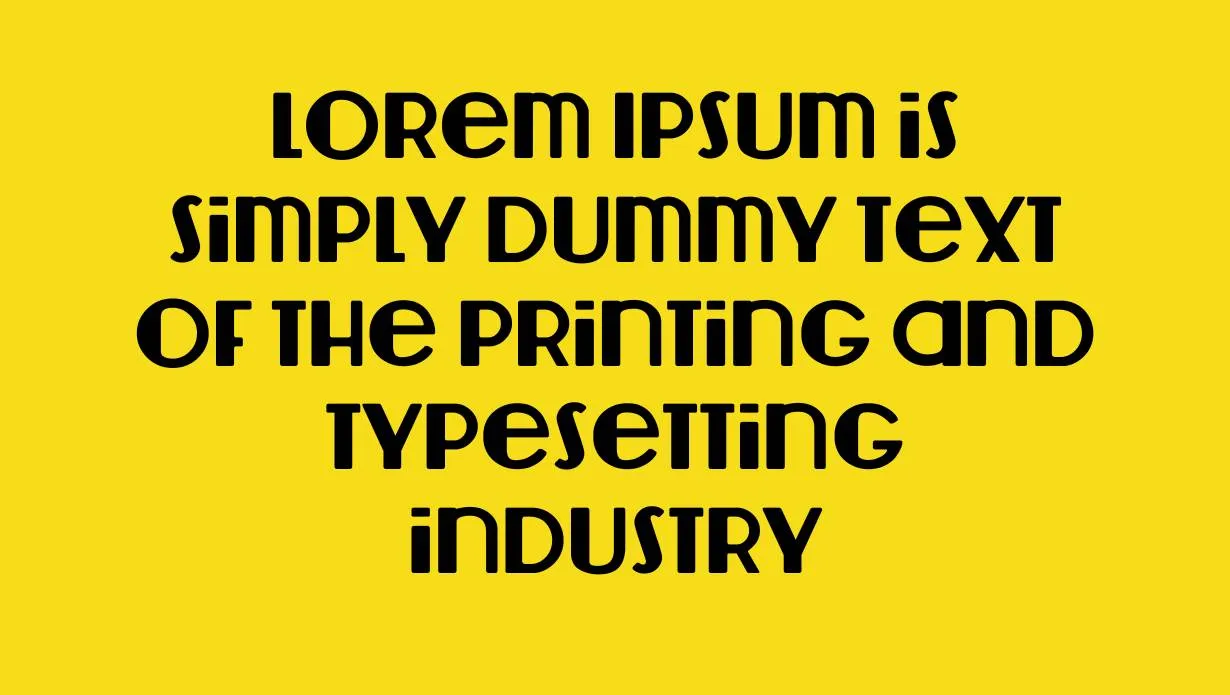
Lemondrop Font brings your text a fresh and vibrant style, making it perfect for youthful and energetic designs. It is a fancy font that can give your plans more creative vibes. It can be downloaded in OTF and TTF file versions
Lauren Thompson is an amazing font designer and he has also created this fantastic font. You can use Lemondrop Font conveniently with Canva and Adobe Photoshop for various creative projects.
Lemondrop Font Family